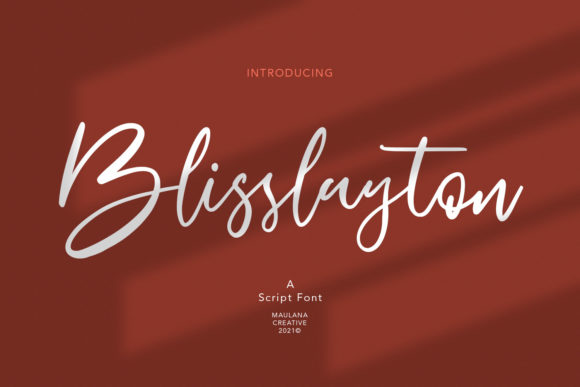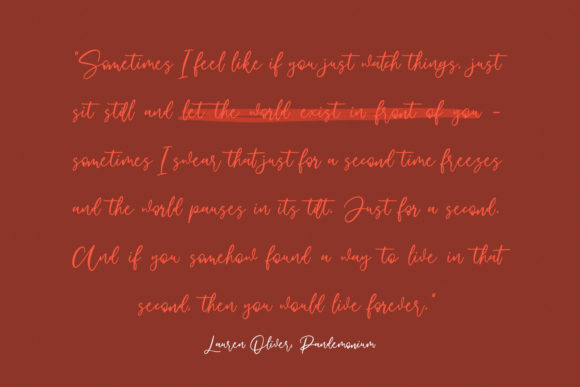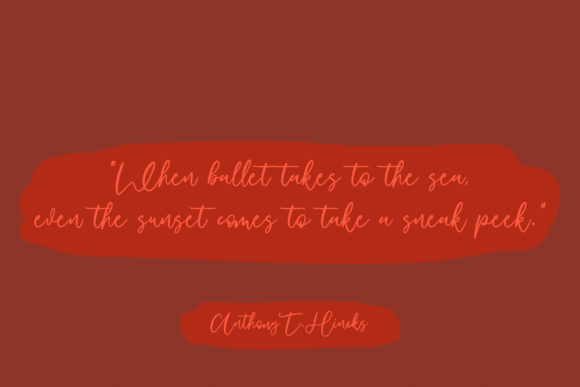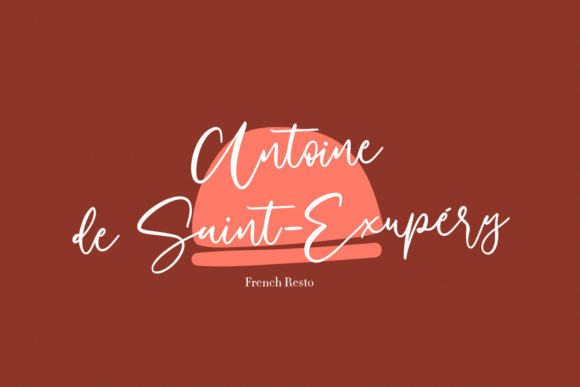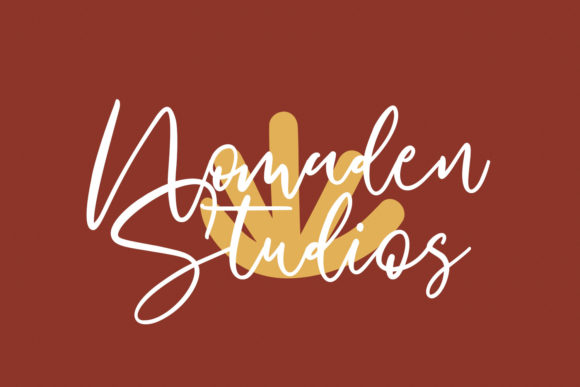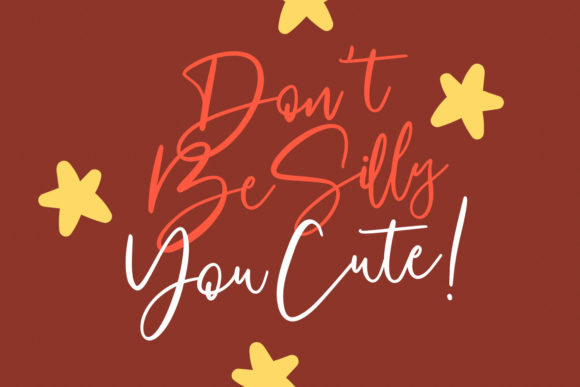
About Blisslayton Font
Blisslayton is a stunning and stylish handwritten font that exudes elegance and sophistication. With its neat and well-crafted design, this font is perfect for adding a touch of luxury to any design project. Whether you’re creating branding materials, logos, invitations, or other creative works, Blisslayton will make your designs stand out.
The carefully designed letterforms of Blisslayton showcase its beauty and precision. Each stroke is meticulously crafted to create a clean and refined look. The result is a font that is both stylish and elegant, making it a versatile choice for a wide range of design applications.
Blisslayton’s versatility is one of its greatest strengths. Whether you’re working on a modern, minimalist design or a more intricate and decorative project, this font can adapt seamlessly. Its timeless appeal and balanced letterforms make it suitable for a variety of design styles and themes.
Fall in love with Blisslayton’s incredibly versatile style and let your creativity soar. Its clean and sophisticated appearance will bring a touch of luxury to your designs, making them visually appealing and captivating. Whether you’re designing for print or digital platforms, Blisslayton will elevate your projects to new heights.
Use Blisslayton to create spectacular designs that leave a lasting impression. Whether it’s a logo that embodies elegance and professionalism, an invitation that exudes sophistication, or a branding project that demands a refined touch, this font will deliver. Its versatile style allows you to experiment and explore various design possibilities.
Add Blisslayton to your font collection and unlock its potential to enhance your creative projects. Fall in love with its stylish and neat handwritten design, and watch as it transforms your designs into works of art. Let Blisslayton be your go-to font for projects that require a luxury spark and a touch of elegance.